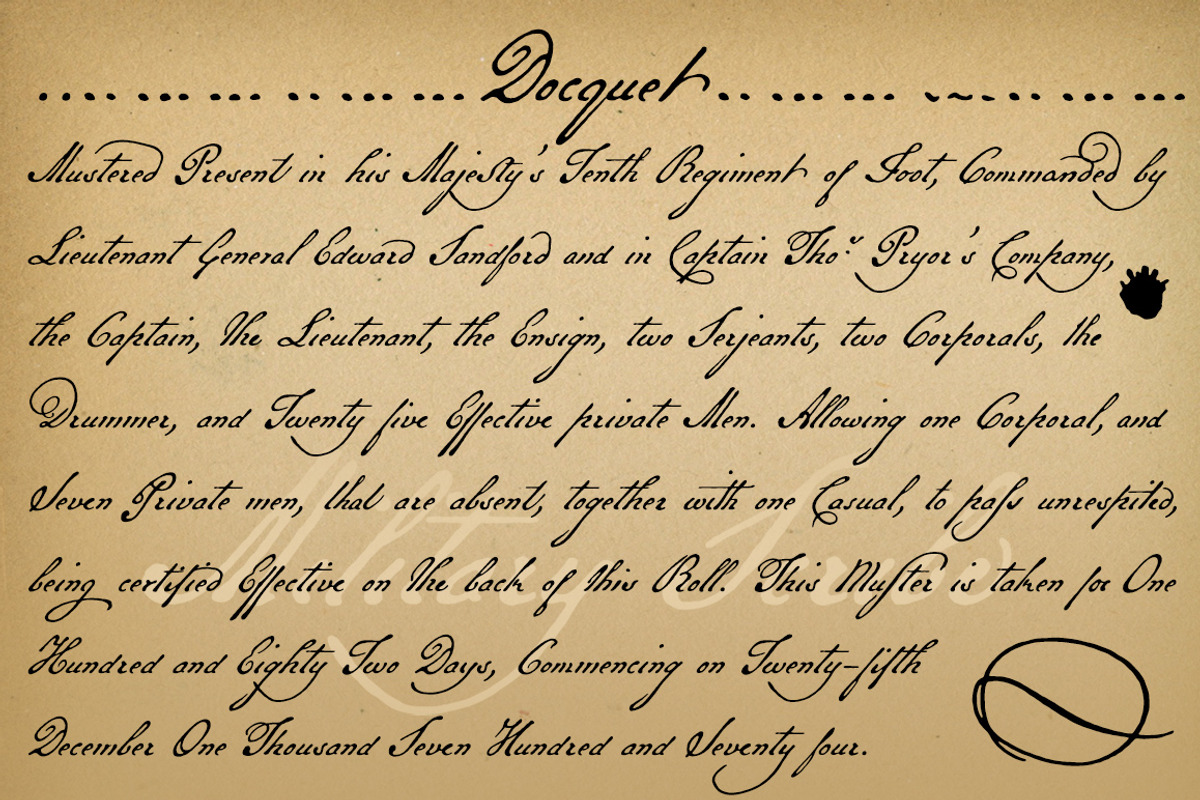
Military Scribe, a 1700s cursive font
Military Scribe, a 1700s cursive font by Three Islands Press is a font selected for branding, posters, packaging, typography.
- Has more than 1,000 characters and scores of OpenType features.
Military Scribe, a 1700s cursive font by Three Islands Press fits naturally into Branding, posters, packaging, typography.